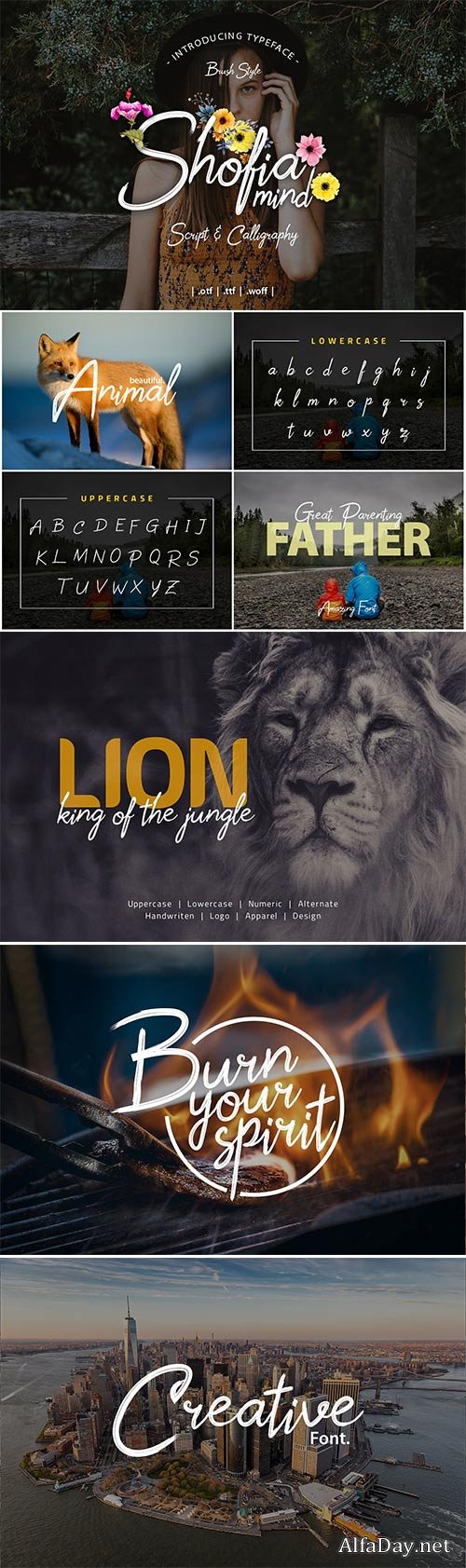
CM - Shofia Mind Script Font 3017341
Shofia Mind Script is a stylish calligraphy font that features a varying baseline, smooth line, classic and interesting touch.